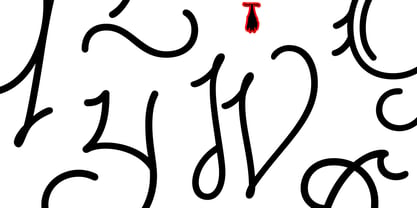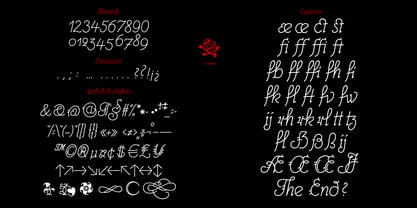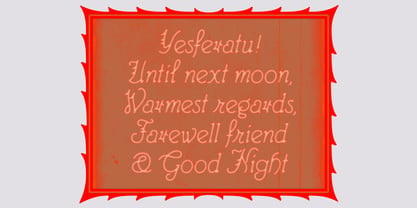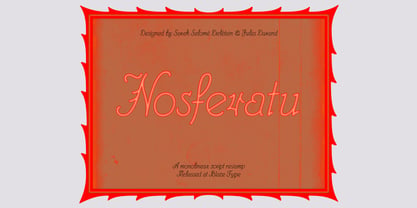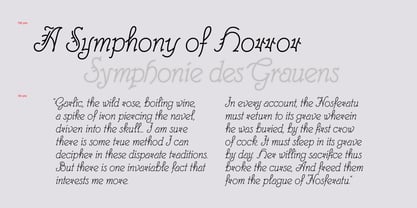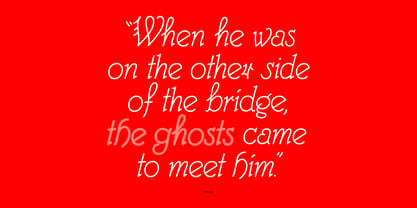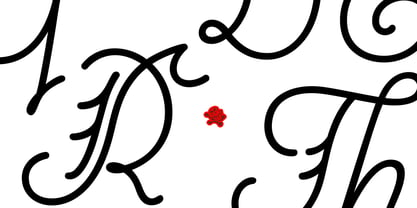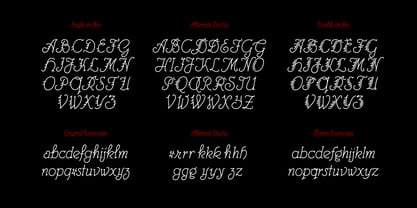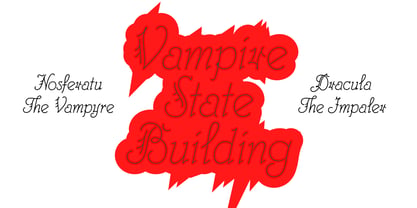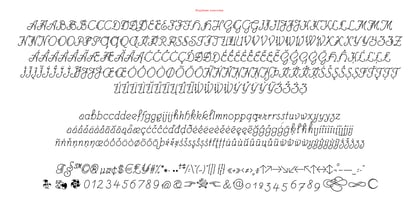
Nosferatu
The Nosferatu Font Family was designed by Jules Durand, Sarah Salomé Delétain and published by Blaze Type. Nosferatu contains 1 styles. More about this family
Nosferatu is a slanted, monolinear script typeface, loosely inspired by the lettering on the German intertitle cards from the 1922 silent film Nosferatu (Eine Symphonie des Grauens), directed by Friedrich Wilhelm Murnau, alongside Albin Grau as art director. The calligrapher who produced these intertitles is not credited in the film’s opening credits and remains unknown. The lettering was drawn using a round nib. The stroke style is based on elements of the Kurrent cursive script. Nosferatu can also be linked to the Sütterlin style, another form of round cursive that was taught in German schools until 1941. Nosferatu currently has one weight but comprises three stylistic sets, to provide variations for each letter, and a bunch of interlaced ligatures.